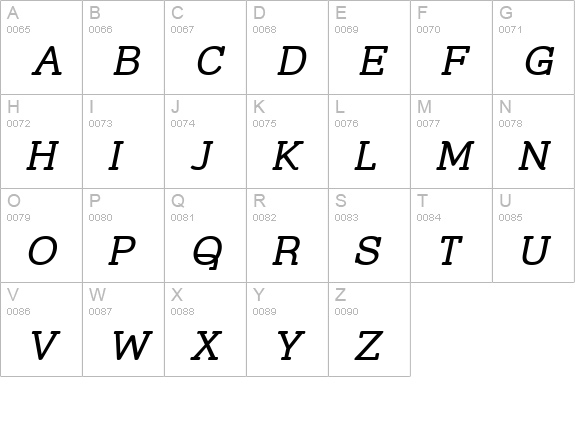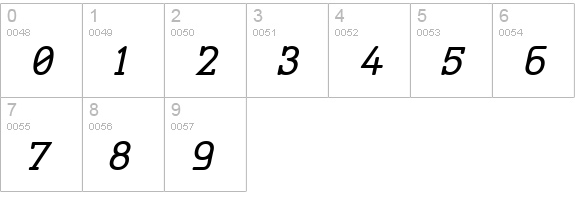
Street Corner Slab Oblique is a distinctive, italic variant in the Street typeface family \xE2\x80\x94 well suited to design and typography projects.
Street Corner Slab Oblique font is a bold and eye-catching typeface that exudes a sense of urban edge and modern flair. With its slanted angles and sturdy slab serif design, this font is perfect for making a statement in headlines, posters, logos, and other design projects that require a strong visual impact. The unique oblique style of Street Corner Slab adds a dynamic touch to any text, giving it a sense of movement and energy. Whether you're looking to create a bold, contemporary look or add a touch of urban sophistication to your designs, this font is sure to make a lasting impression. Best of all, Street Corner Slab Oblique font is free to download at FontsMarket.com, making it easily accessible for designers and creatives looking to add a touch of style to their projects without breaking the bank. Don't miss out on this versatile and stylish font – download it today and start creating stunning designs with ease.